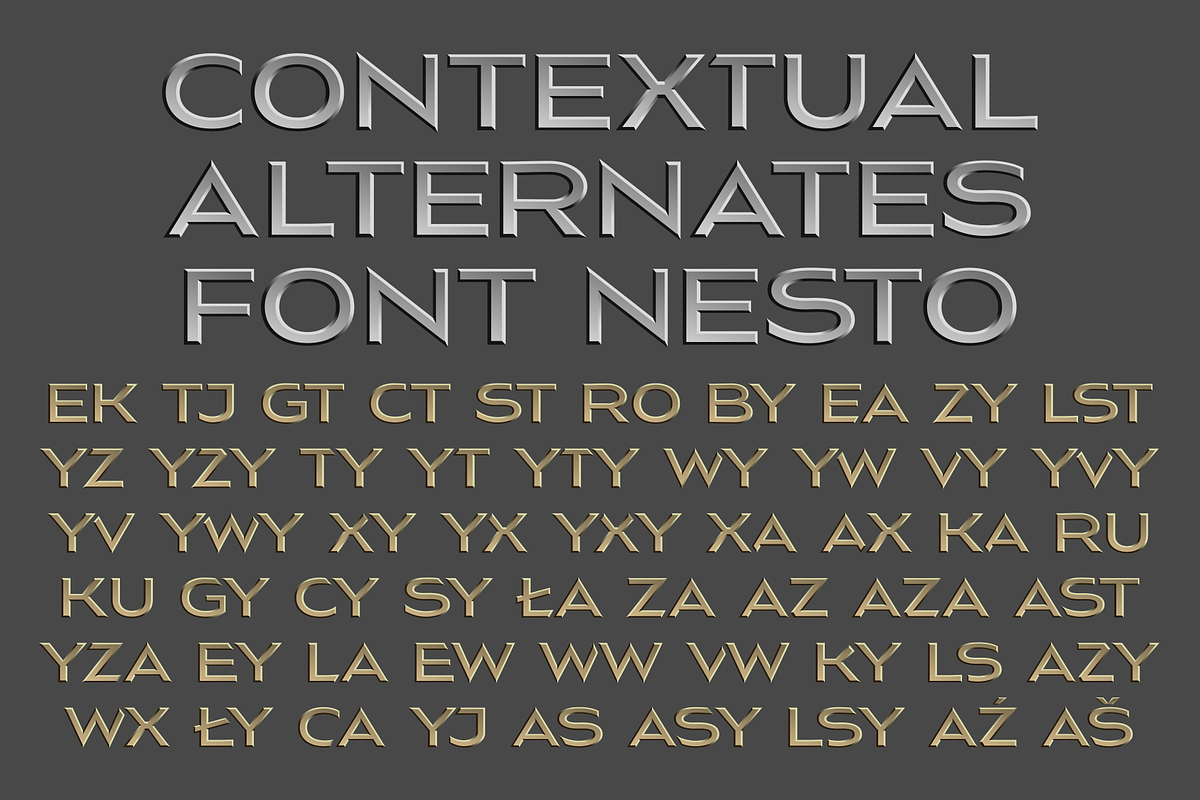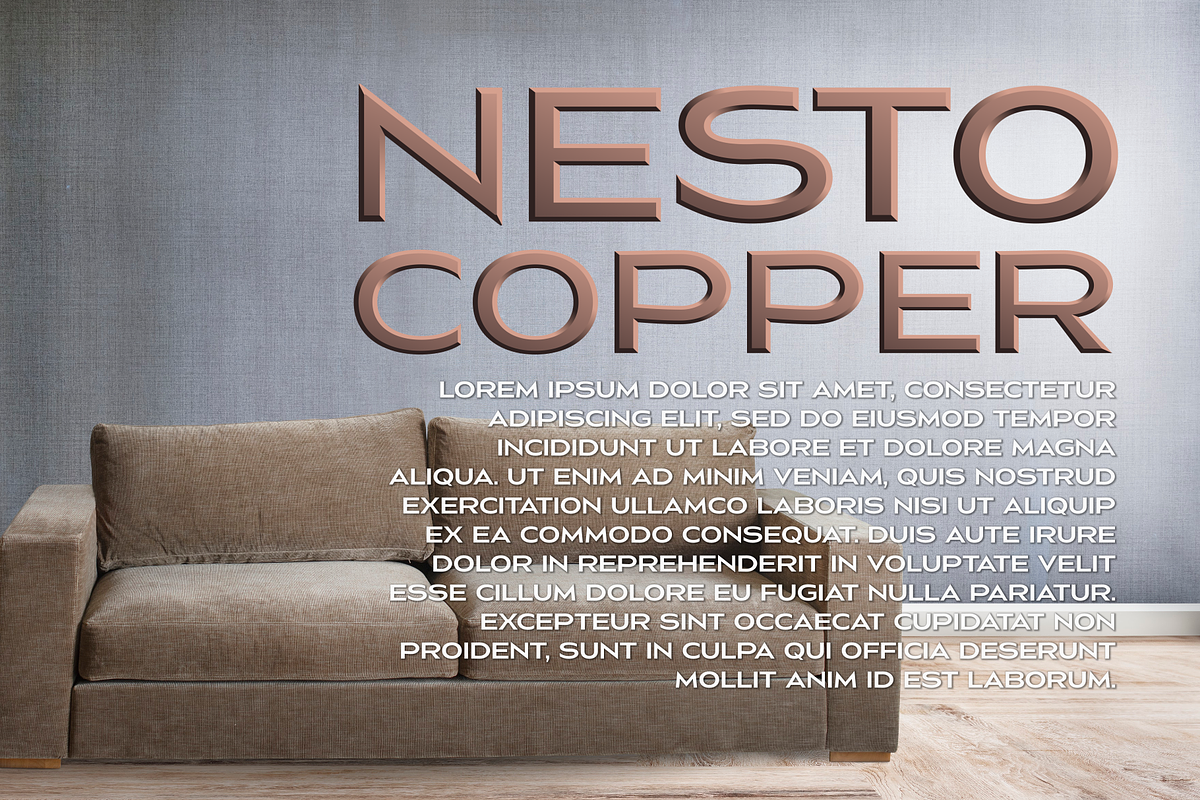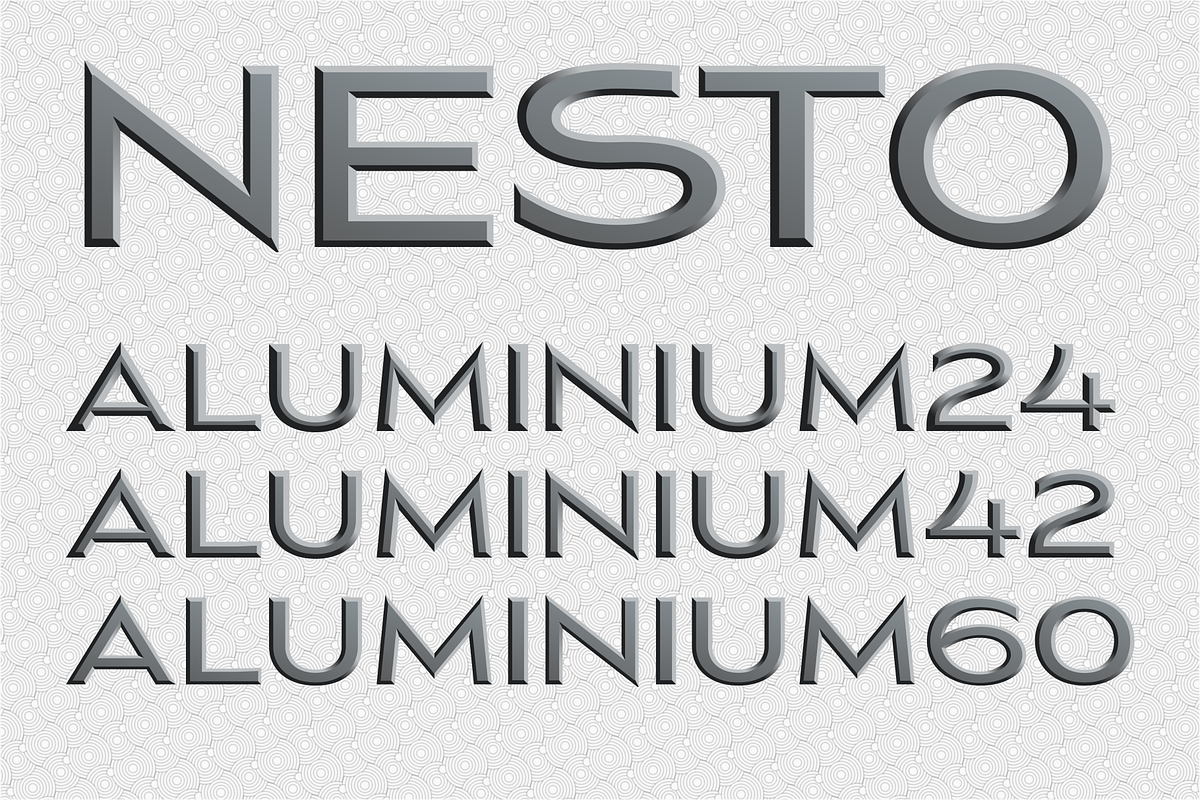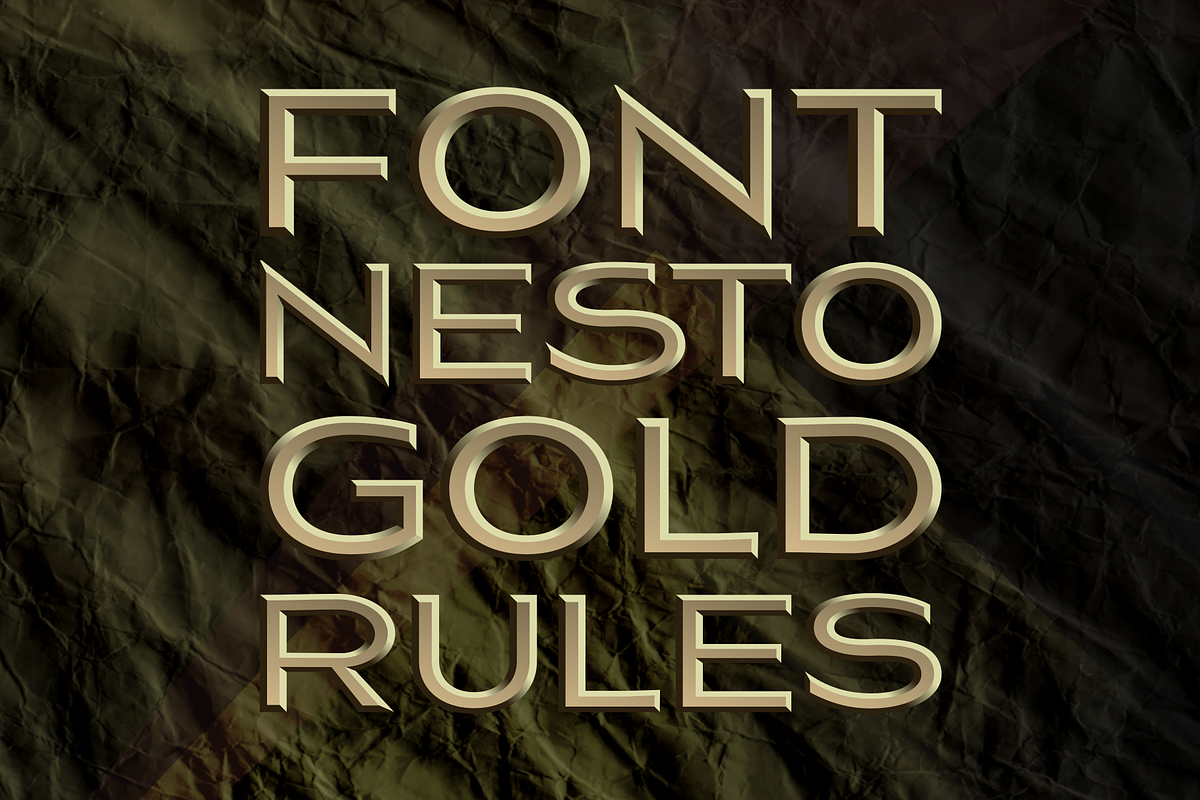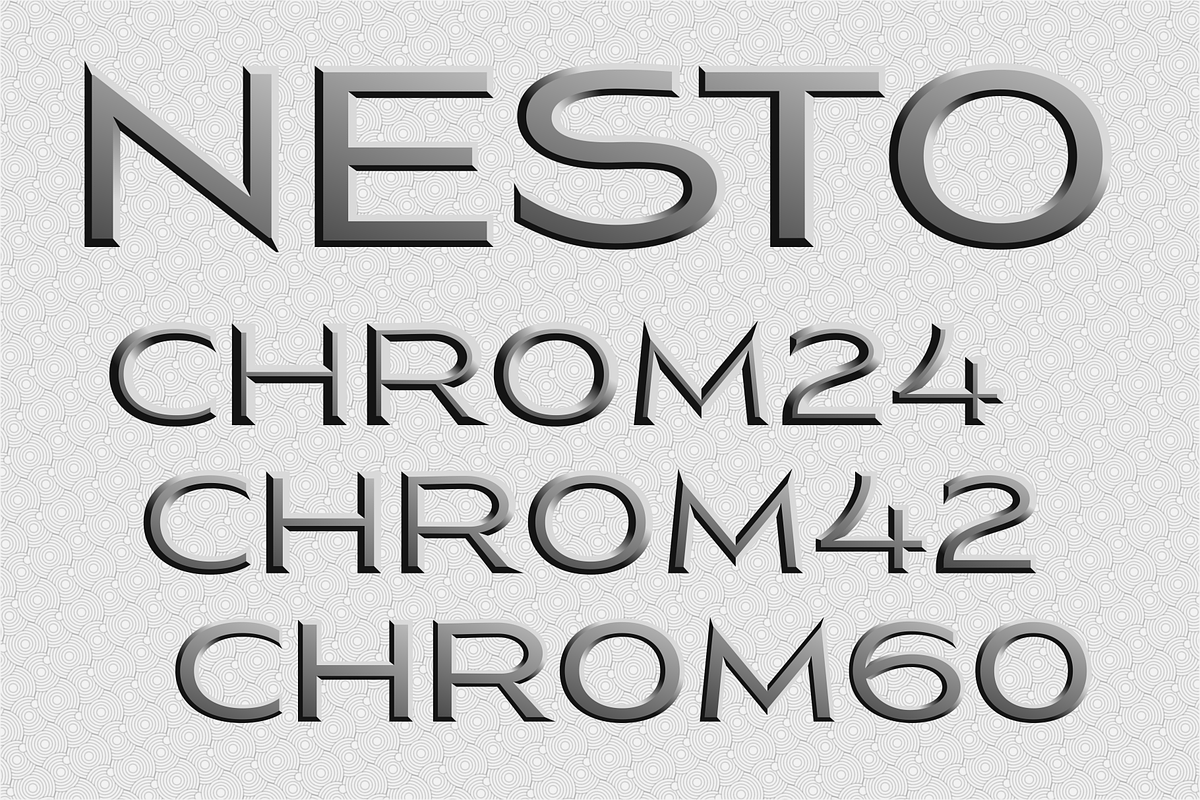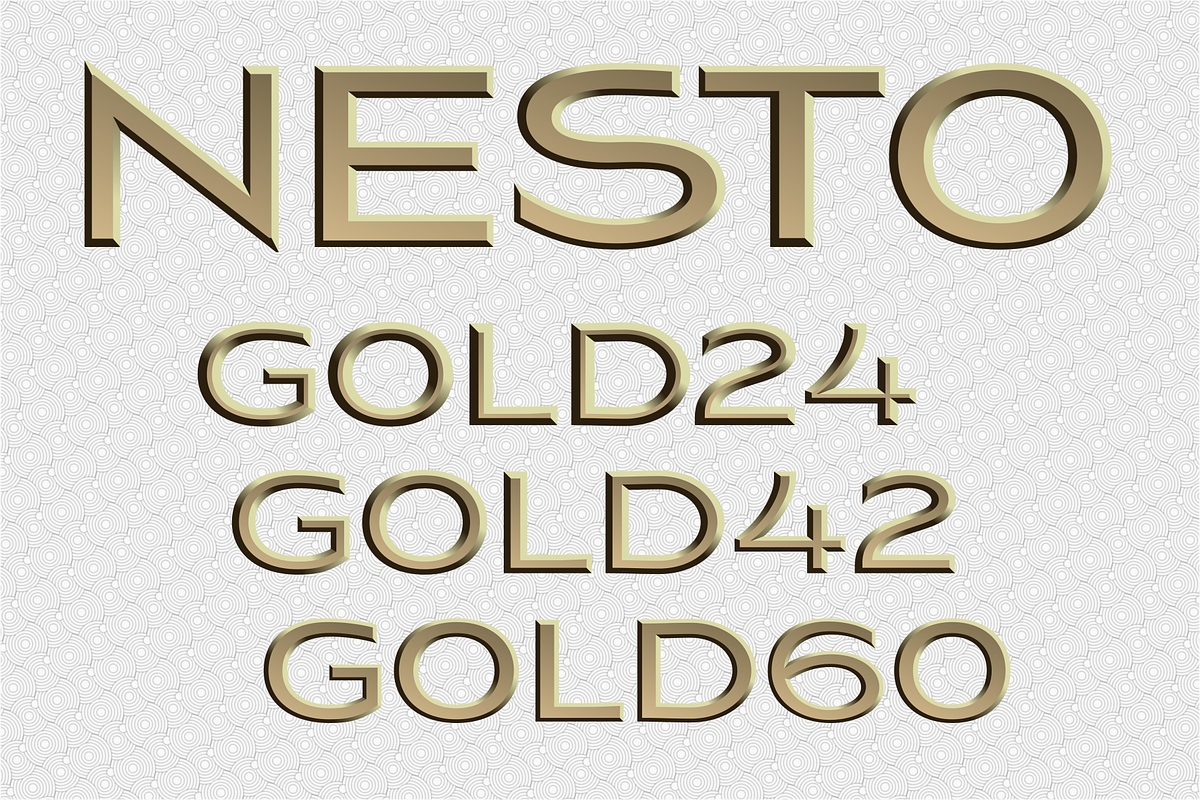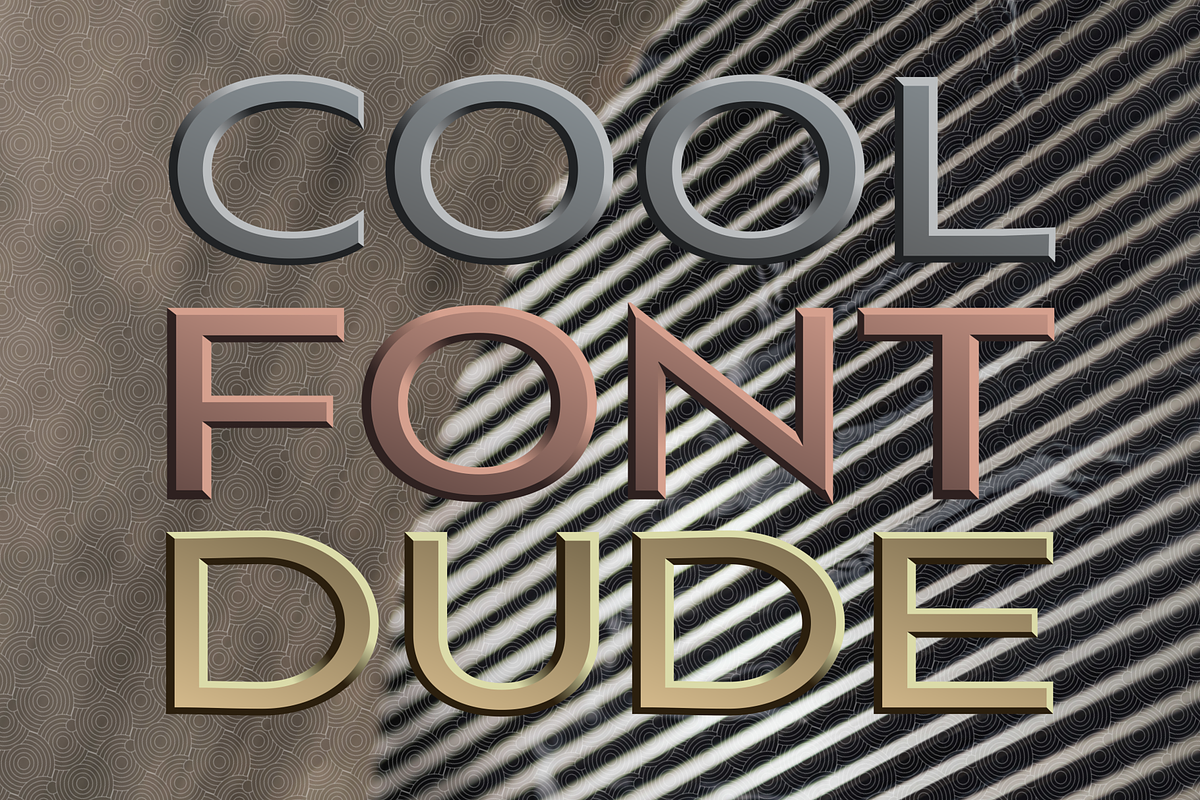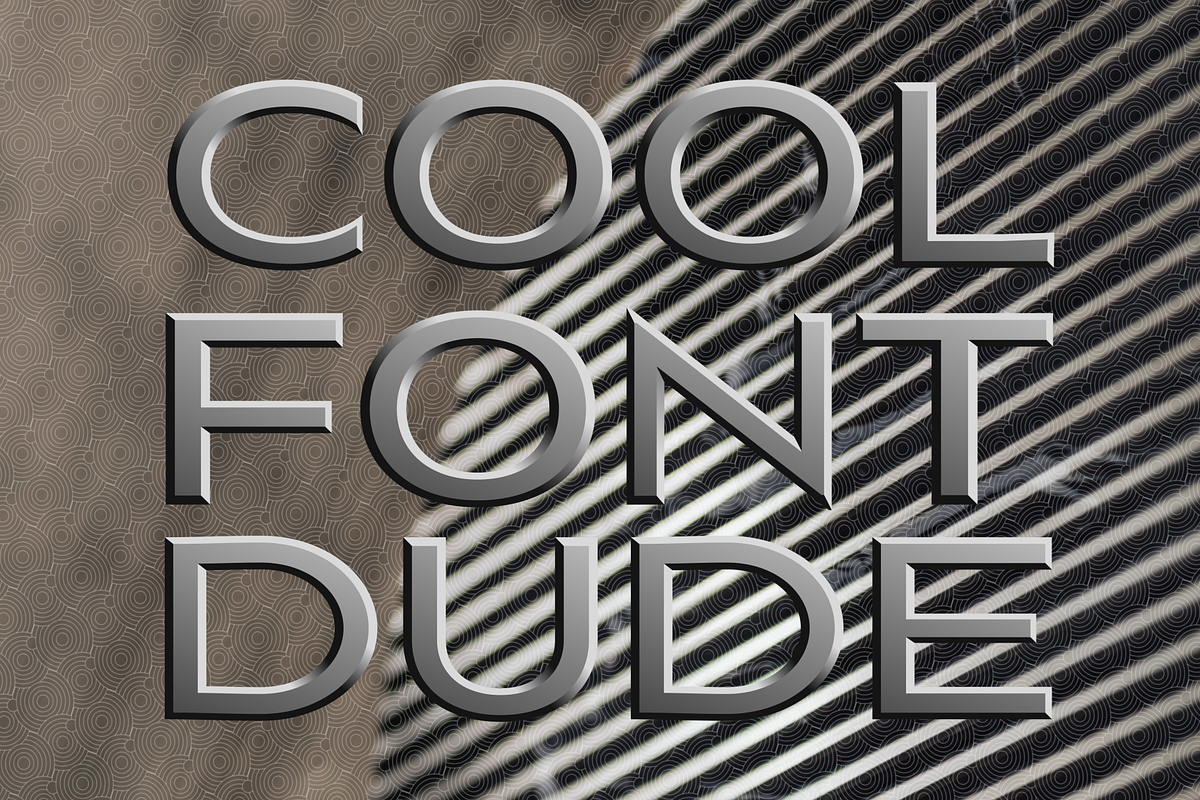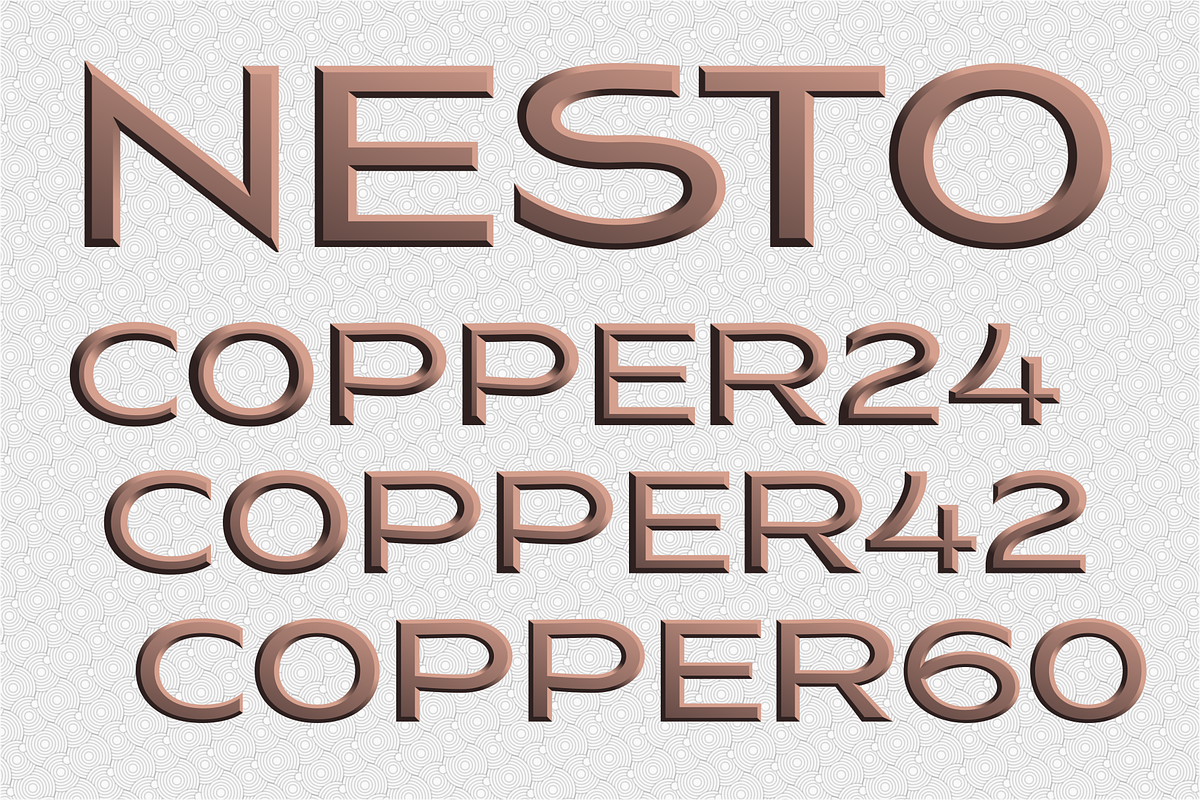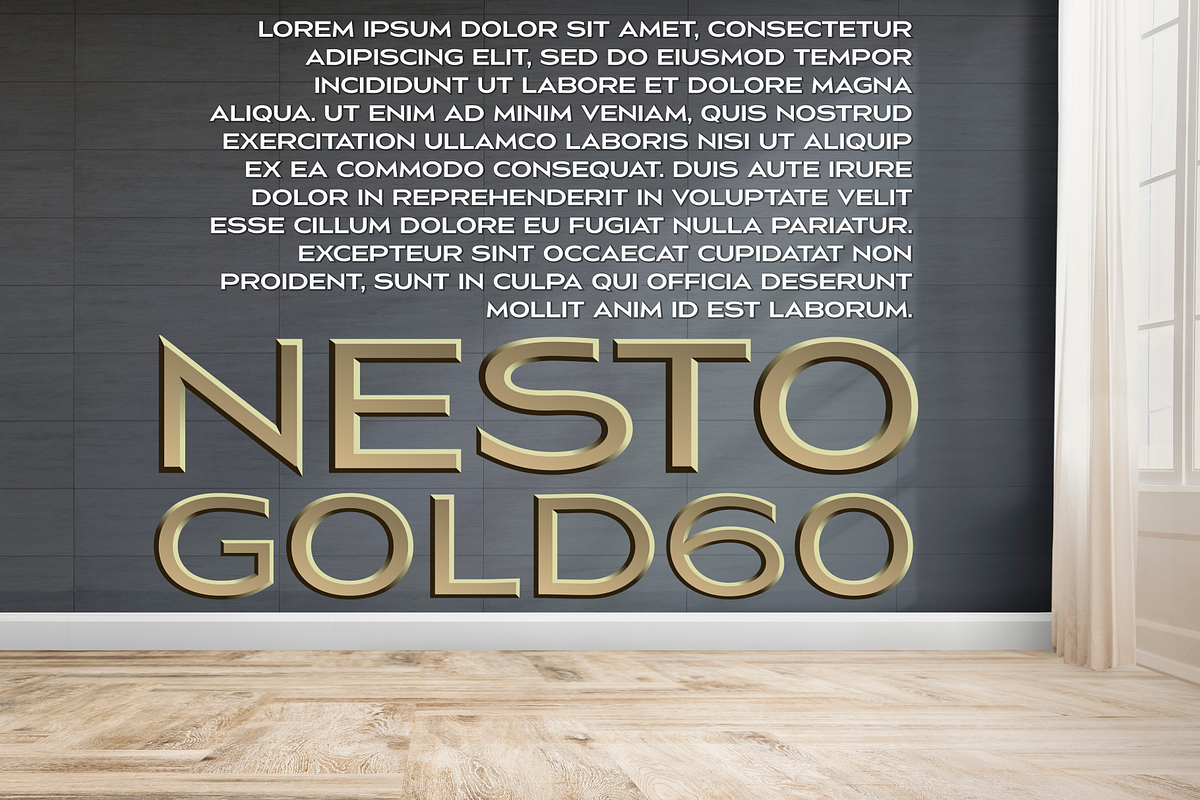
Nesto Metals
Color fonts family Nesto Metals:
- Gold 24, 42 & 60
- Aluminium 24, 42 & 60
- Copper 24, 42 & 60
- Chrom 24, 42 & 60
with full vector glyphs and gradients. Automatic contextual alternates built into the fonts compensate for whitespace area differences.